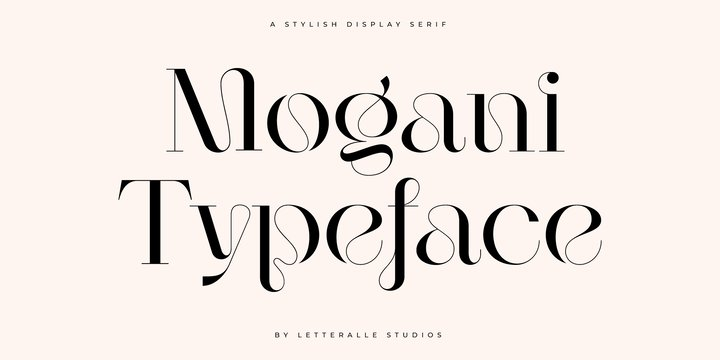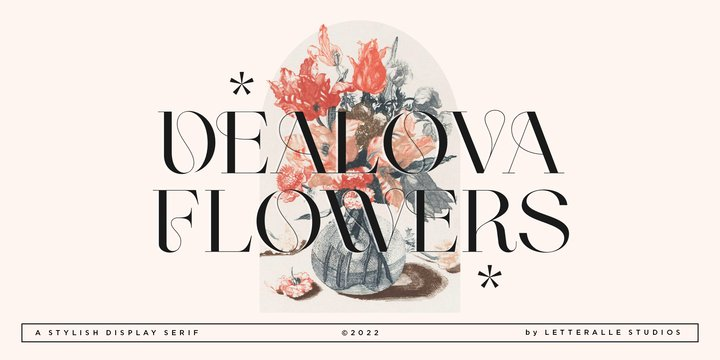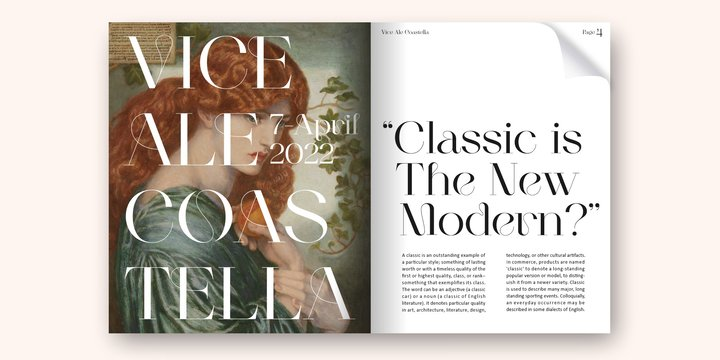
Mogani Font
Mogani FontIntroducing, Mogani! a serif display font with a modern yet luxurious style. Aesthetic and unique letterforms, as well as soft curves and wild shape of the letters make this font so iconic.
Mogani is Perfect for editorial projects, Logo design, Wedding, Clothing Branding, product packaging, magazine headers, or simply as a stylish text overlay to any background image.